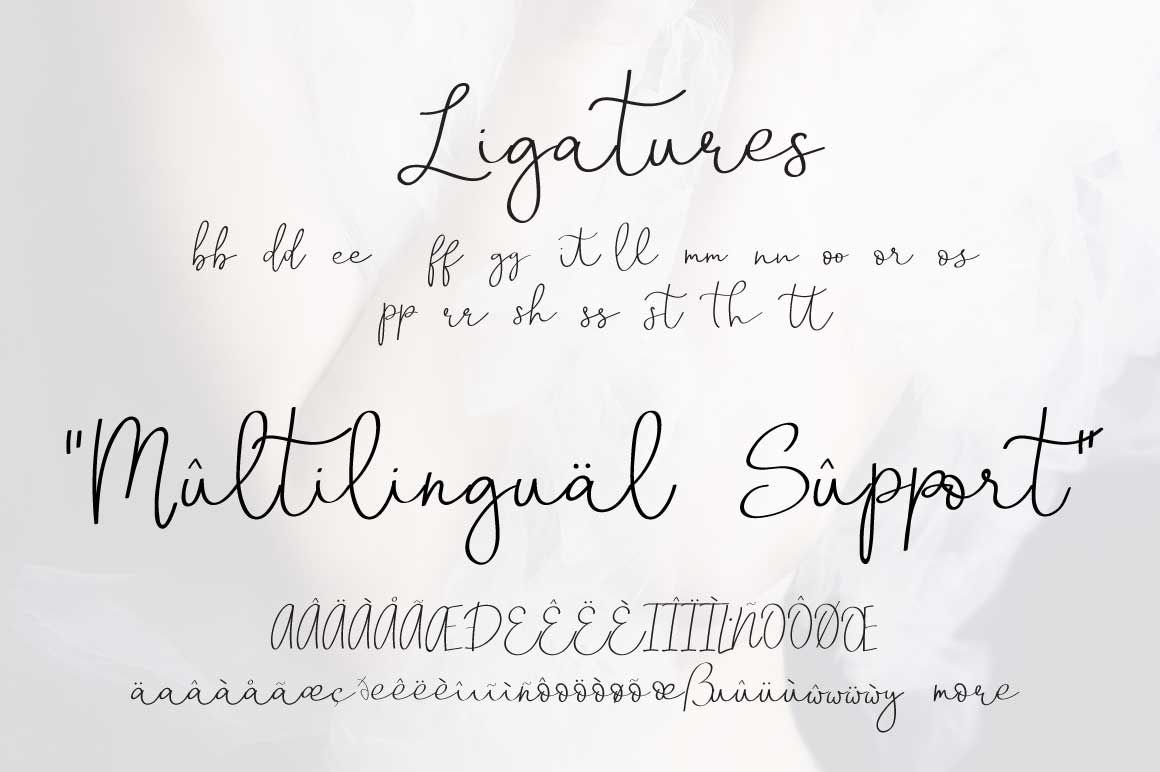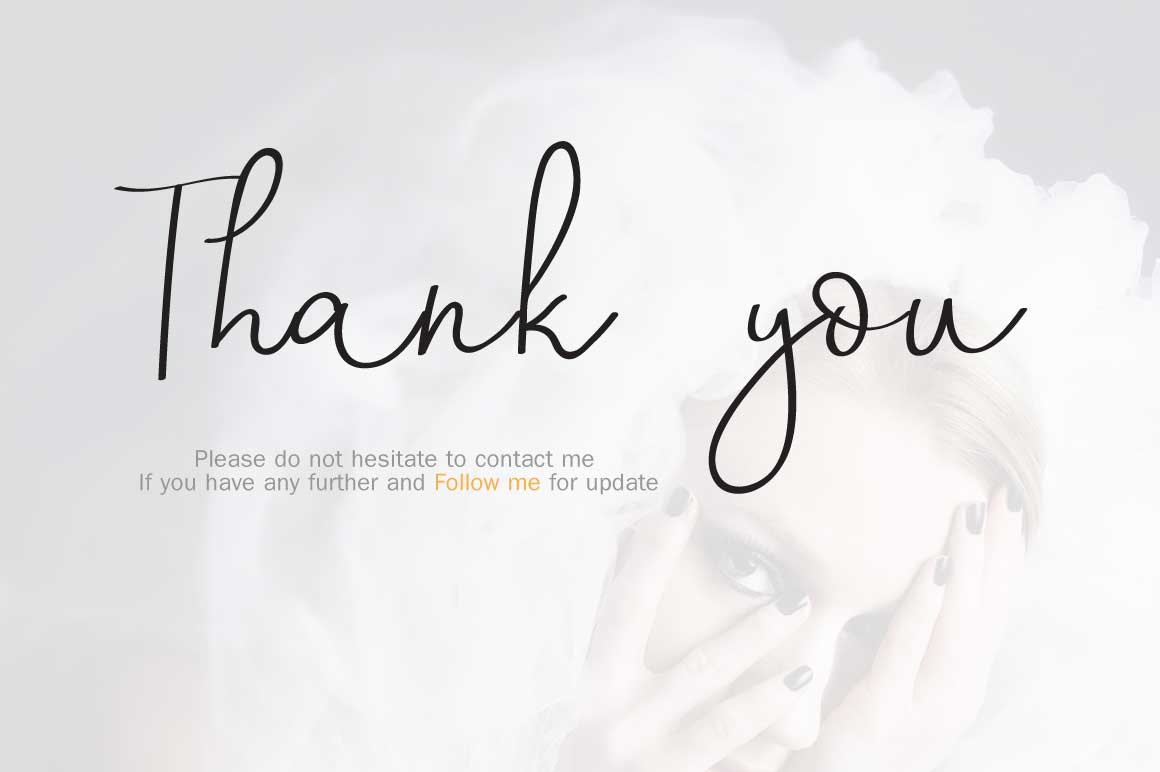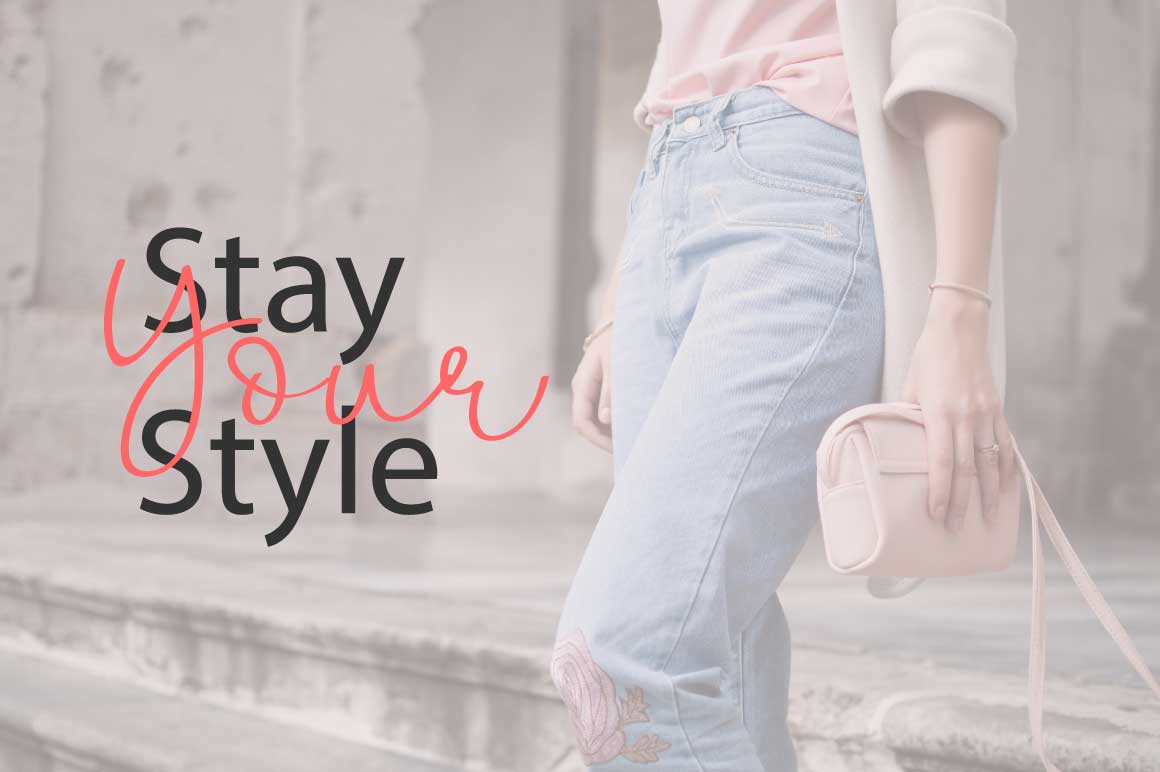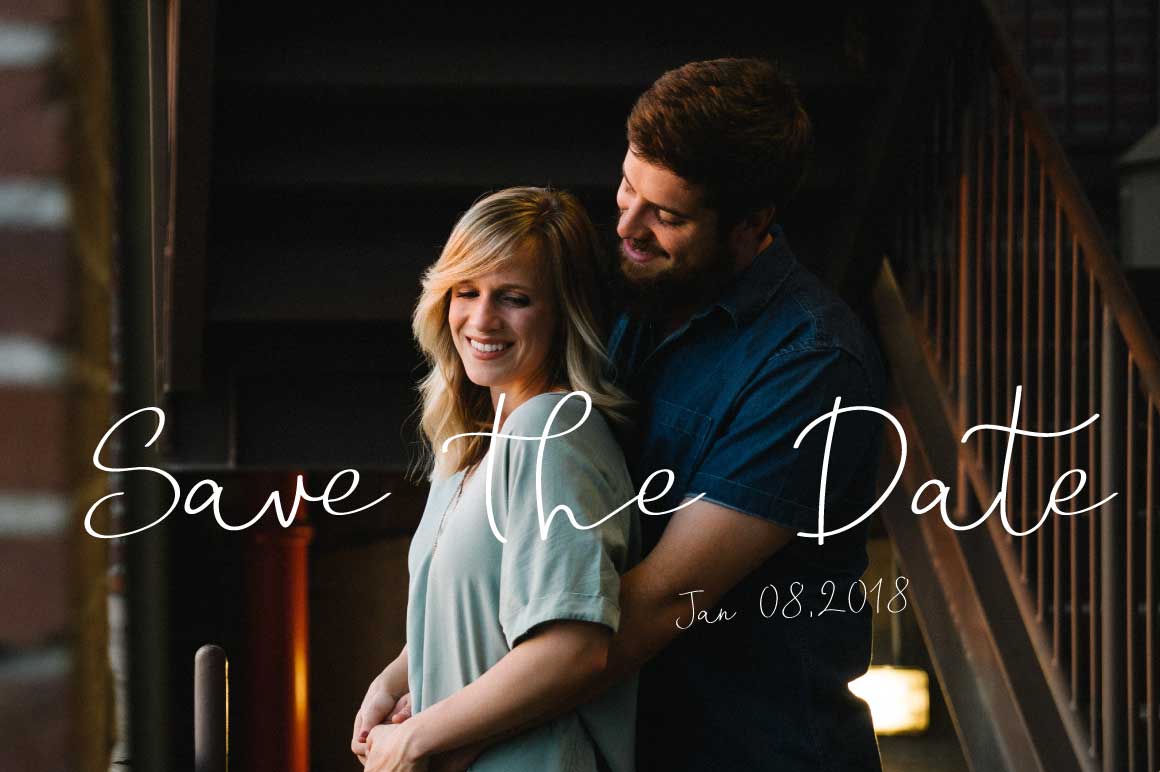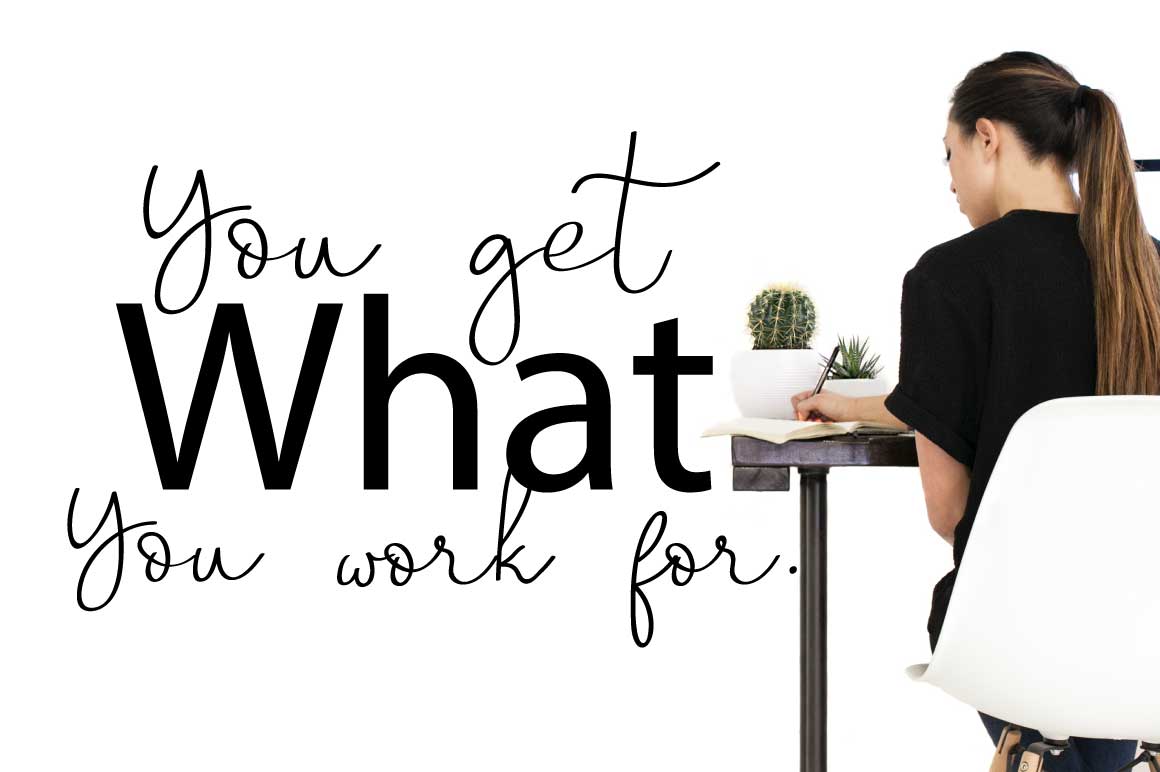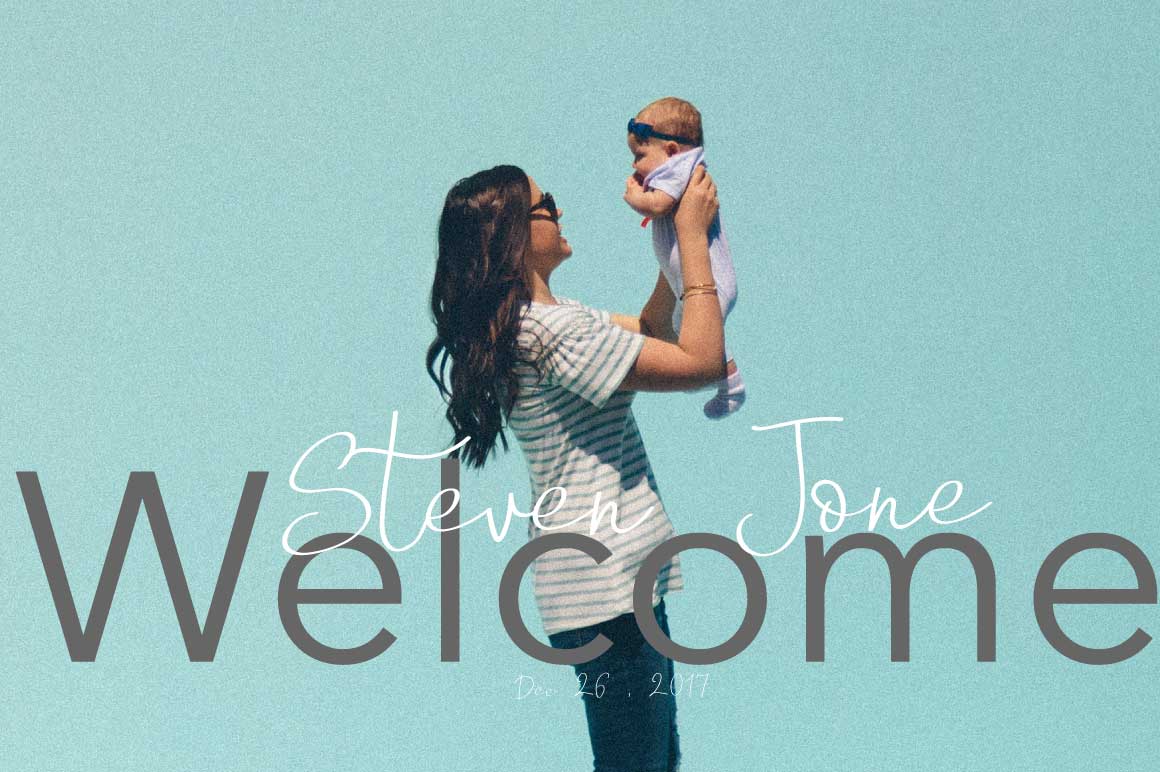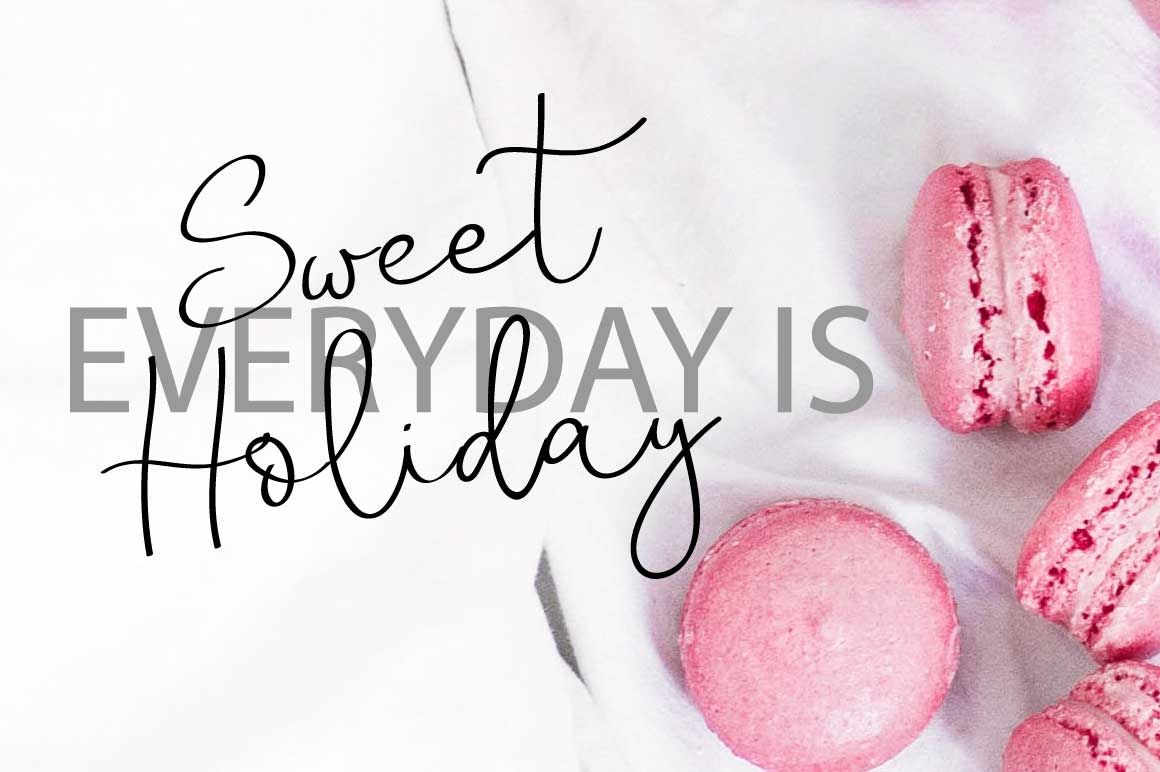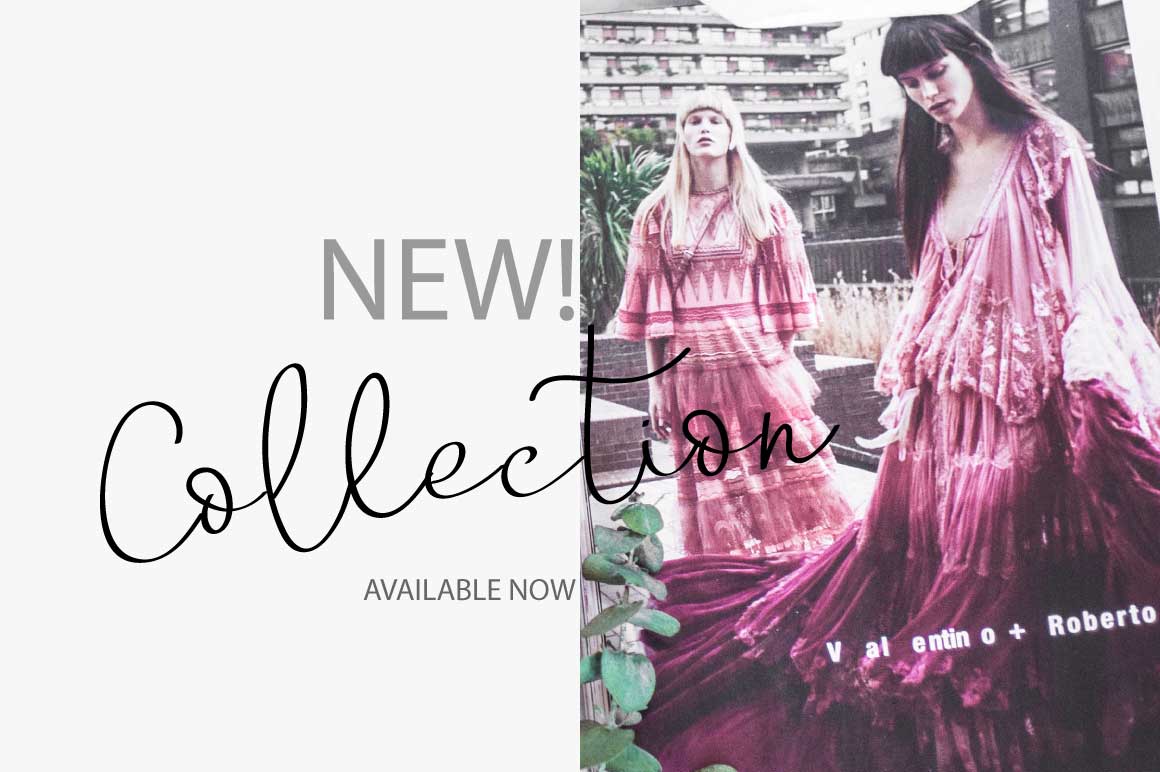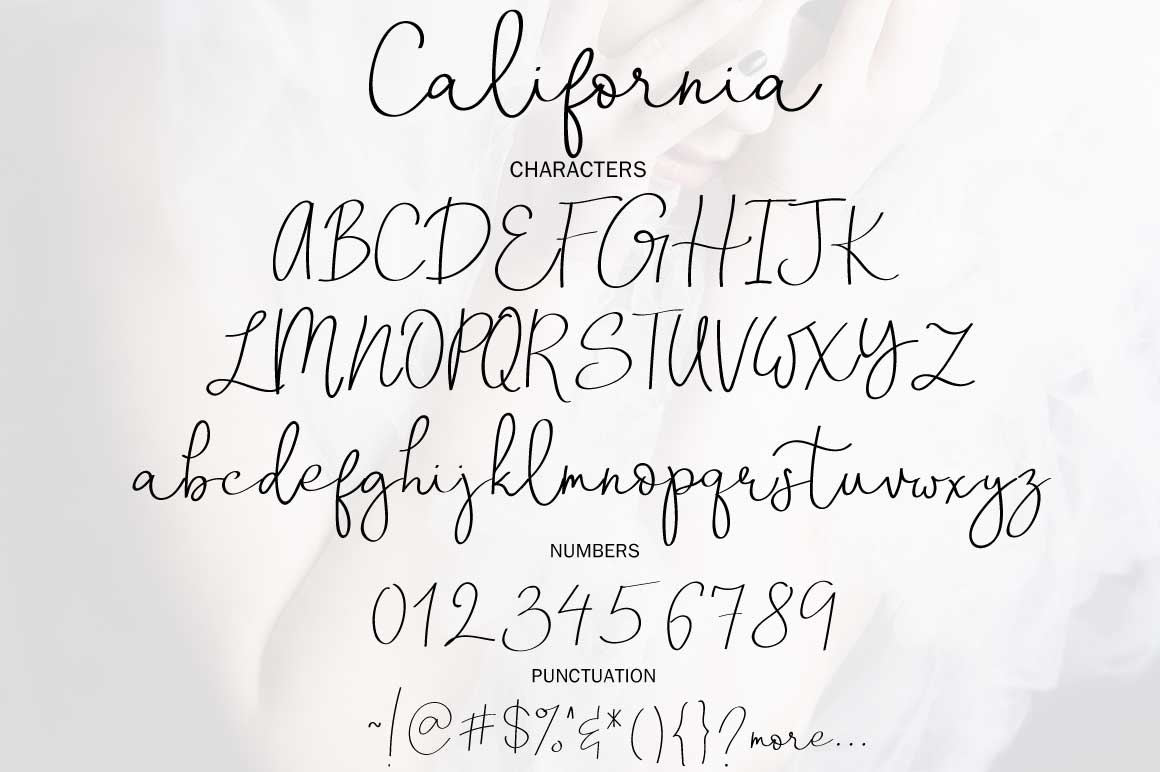
California Font
About California Font
California is a beautiful and casual modern script font, perfect for adding some romance and charm to your designs. This script functions most strongly as a display or headline font.